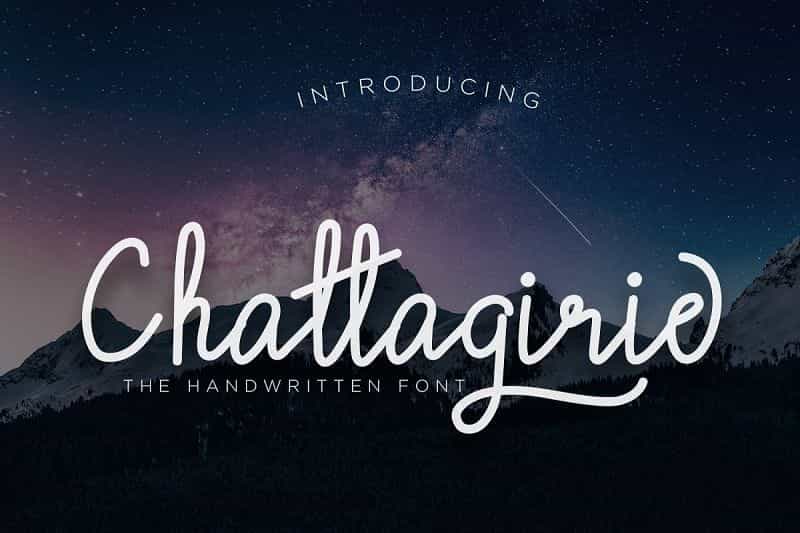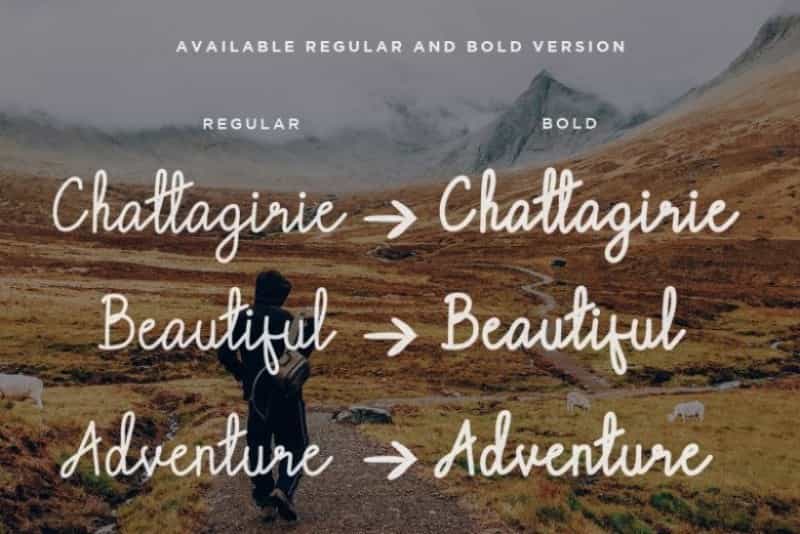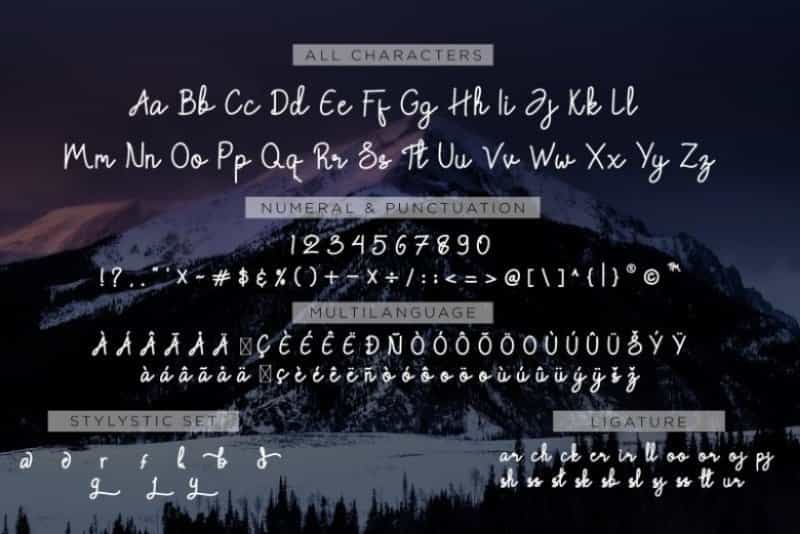
Chattagirie Handwritten Font
Chattagirie font is perfect for logos, branding projects, home decor designs, product packaging, mugs, inspirational quotes, posters, shopping bags, t-shirts, book covers and business cards. Really perfect for event invitations special occasions watermarks for photographs of your images More!